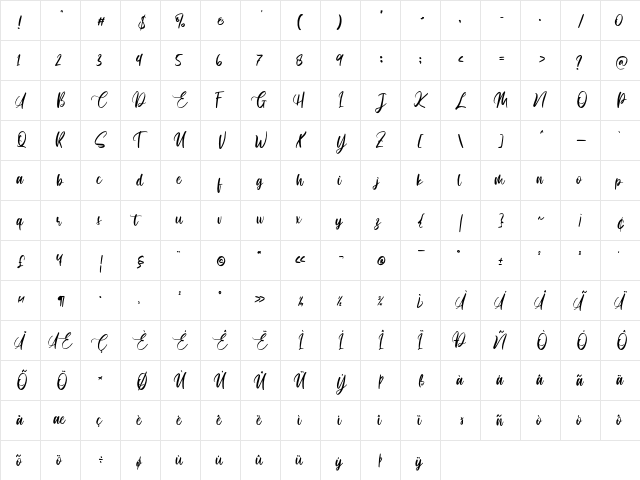
Safetread Regular
| Foundry | arendxstudio |
| Designer | Hatf Type |
Design Context for Safetread Typeface
Safetread is a composed and adaptable typeface that performs quietly and consistently across a wide range of design contexts.